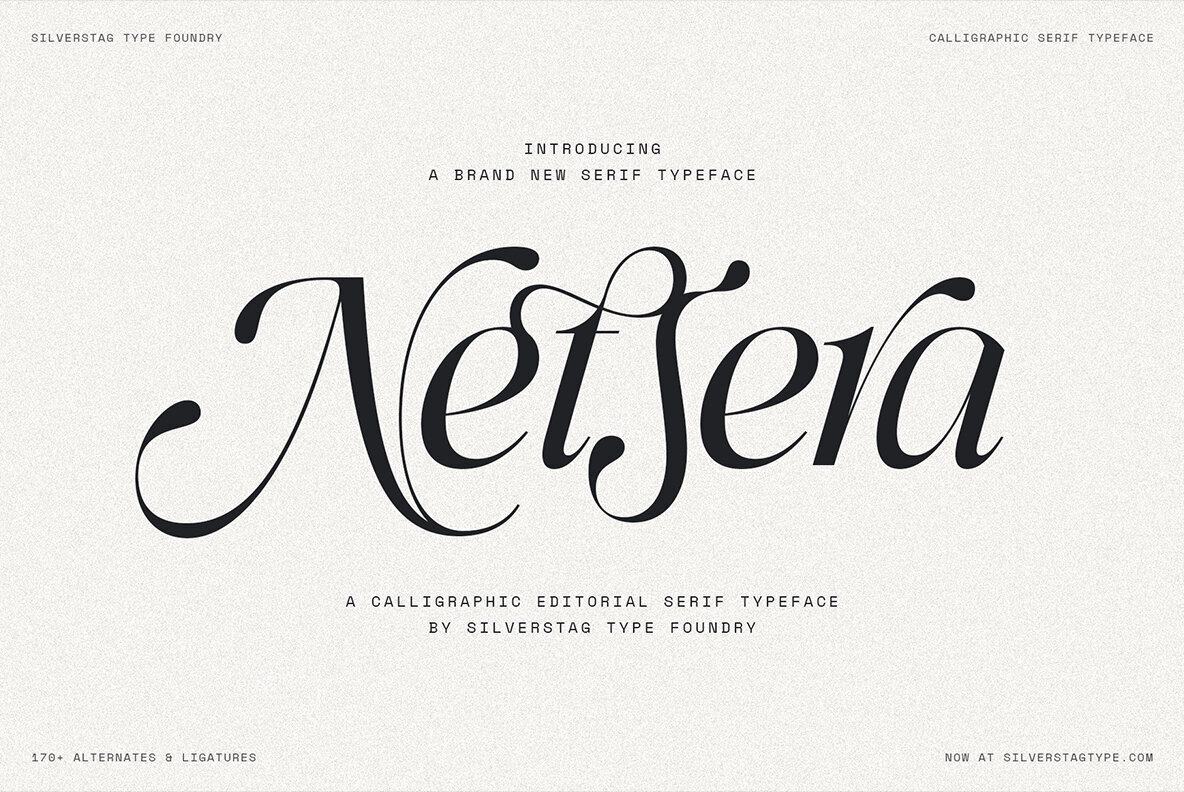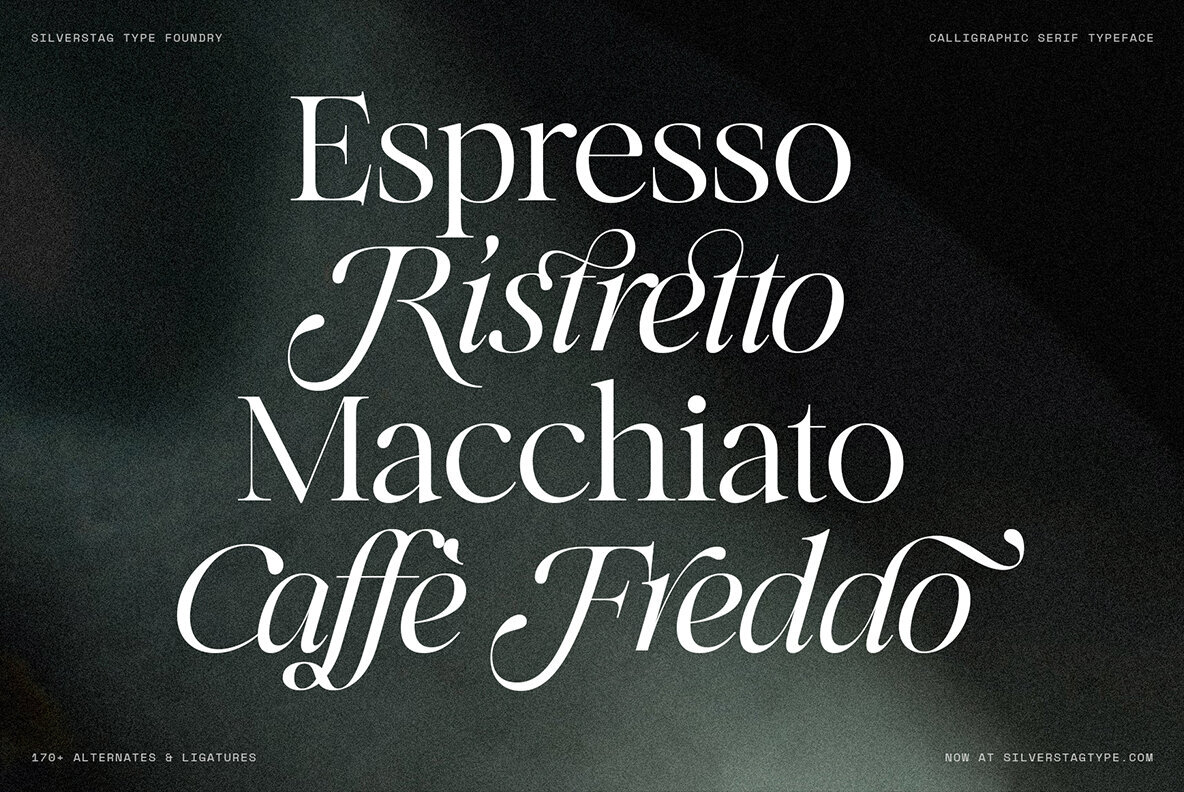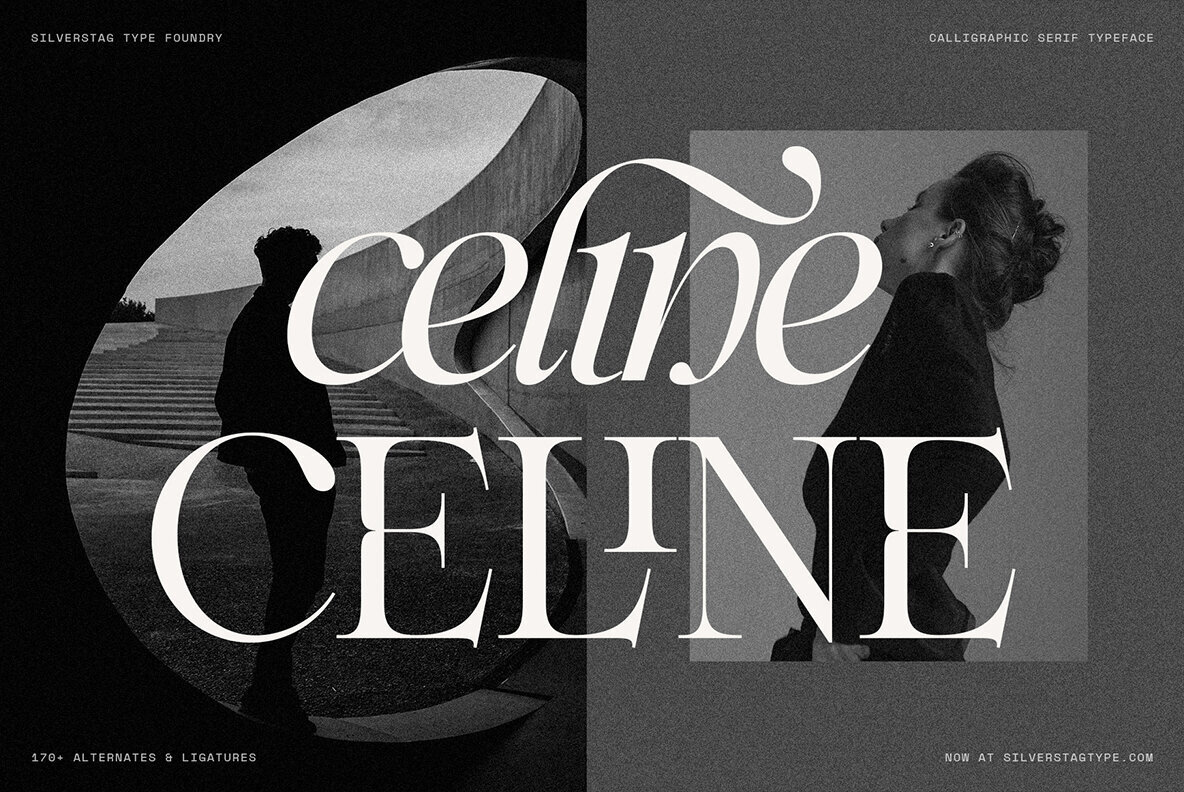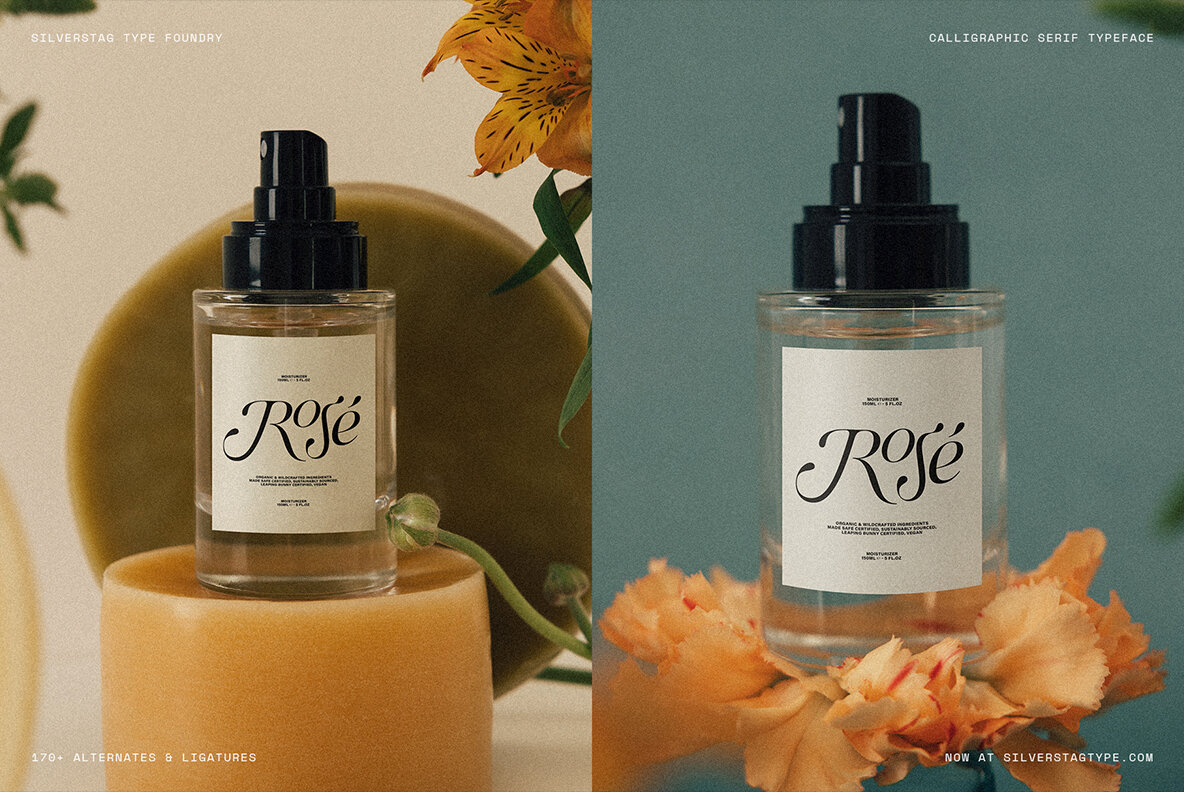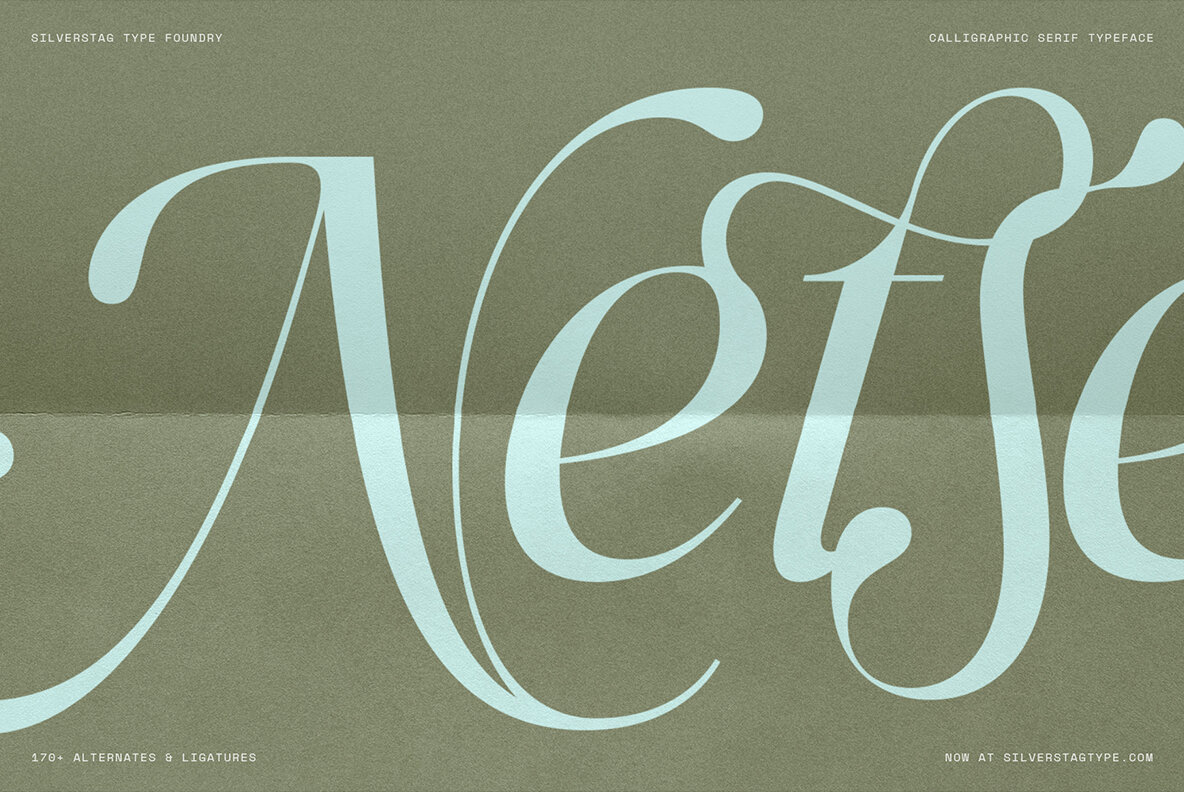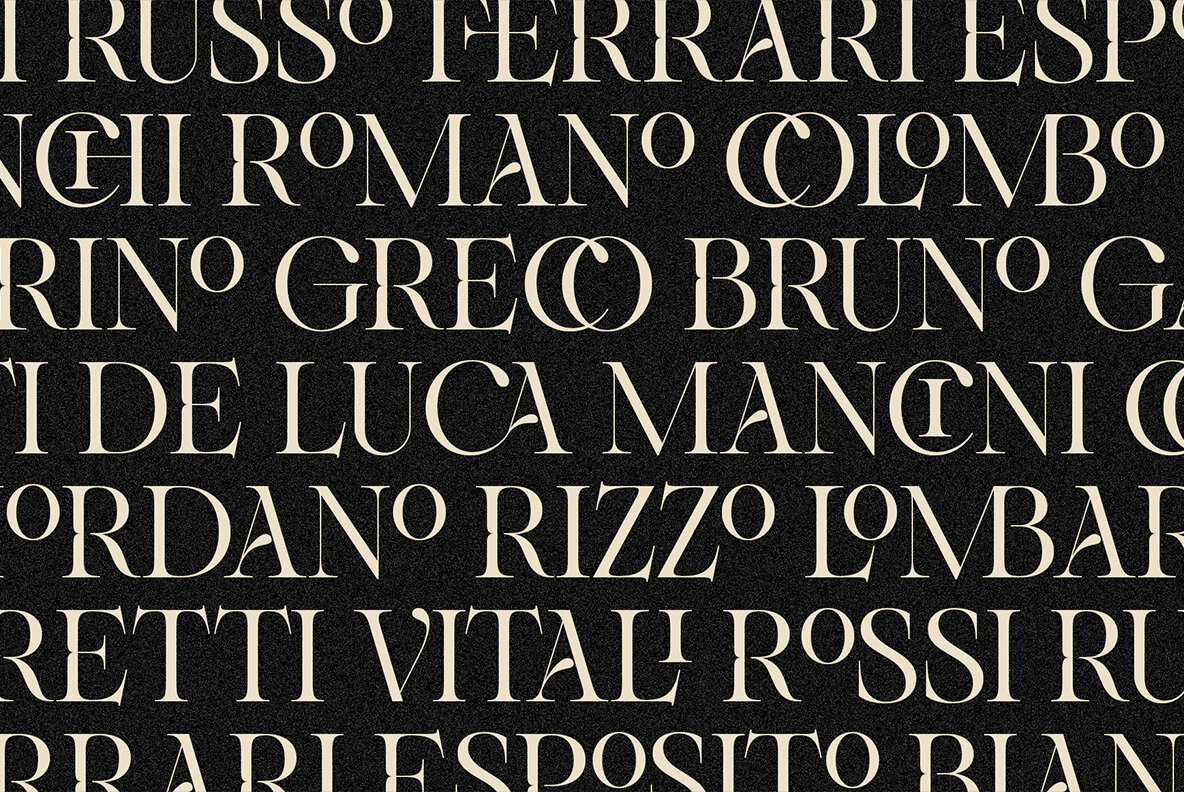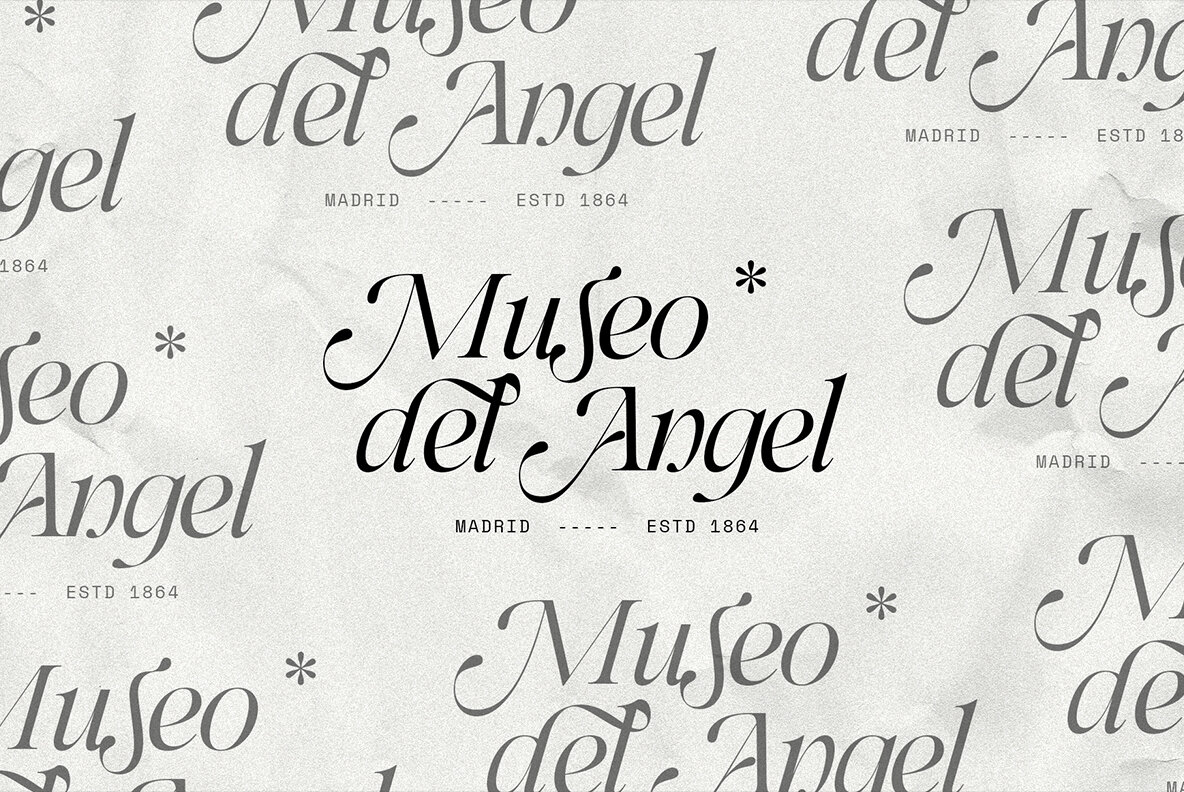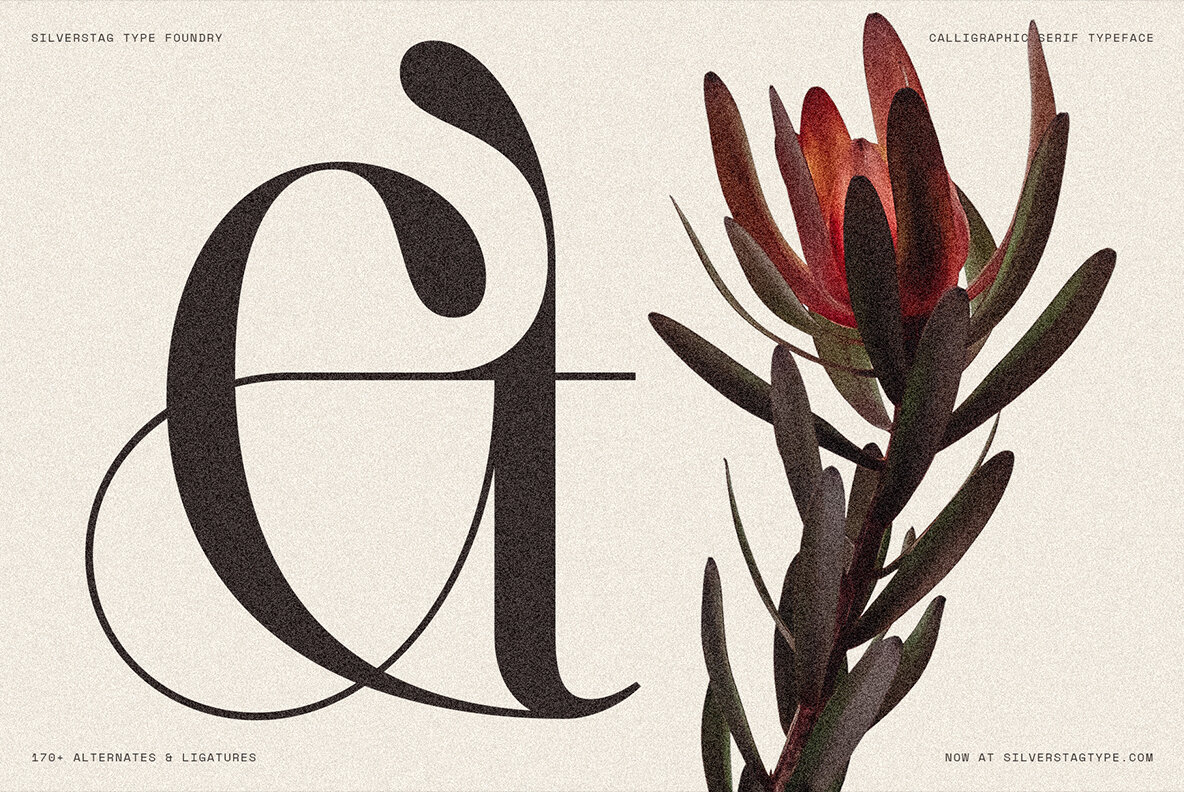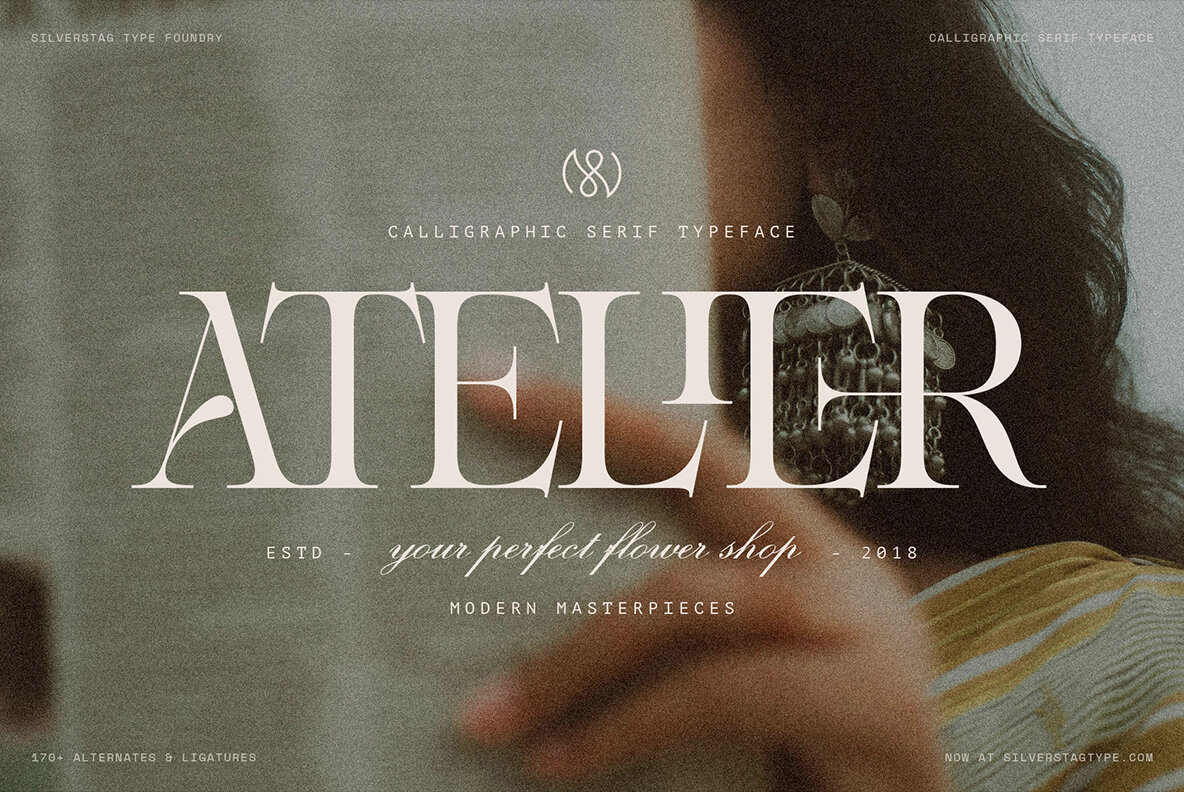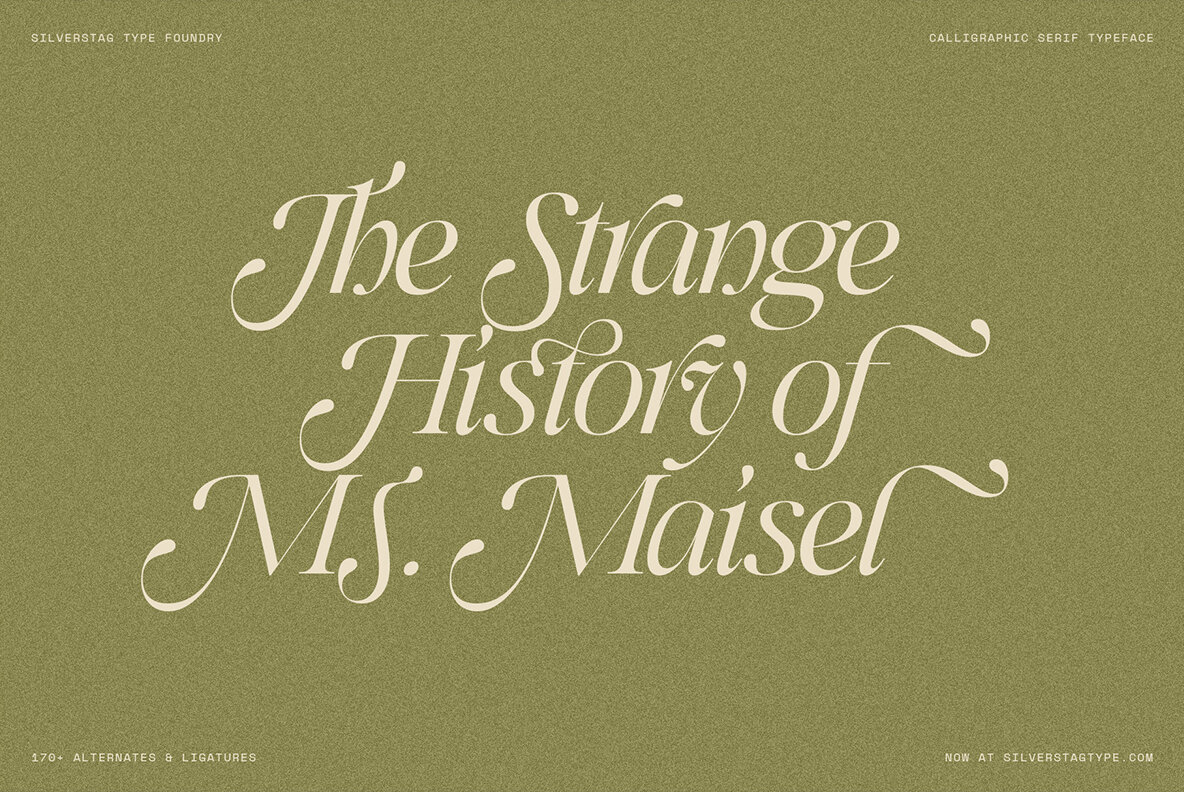
SLTF Netsera Font
SLTF Netsera is a serif font that beautifully combines classical grace with contemporary style. Featuring over 900 characters and more than 170 meticulously fashioned ligatures and alternates, this typeface offers creatives an expansive palette for projects varying from editorial layouts to fashion packaging. Available in both Regular and Italic styles, SLTF Netsera melds sweeping calligraphic strokes with detailed refinements, ensuring it complements any project requiring a touch of romance and structure. Its sophistication makes it an ideal choice for premium branding, exquisite invitations, and elegant logotypes. For designers aiming to create striking visual identities, SLTF Netsera ensures outstanding results with its versatility and elegance.SLTF Netsera: Calligraphic Serif Typeface with Italian Flair